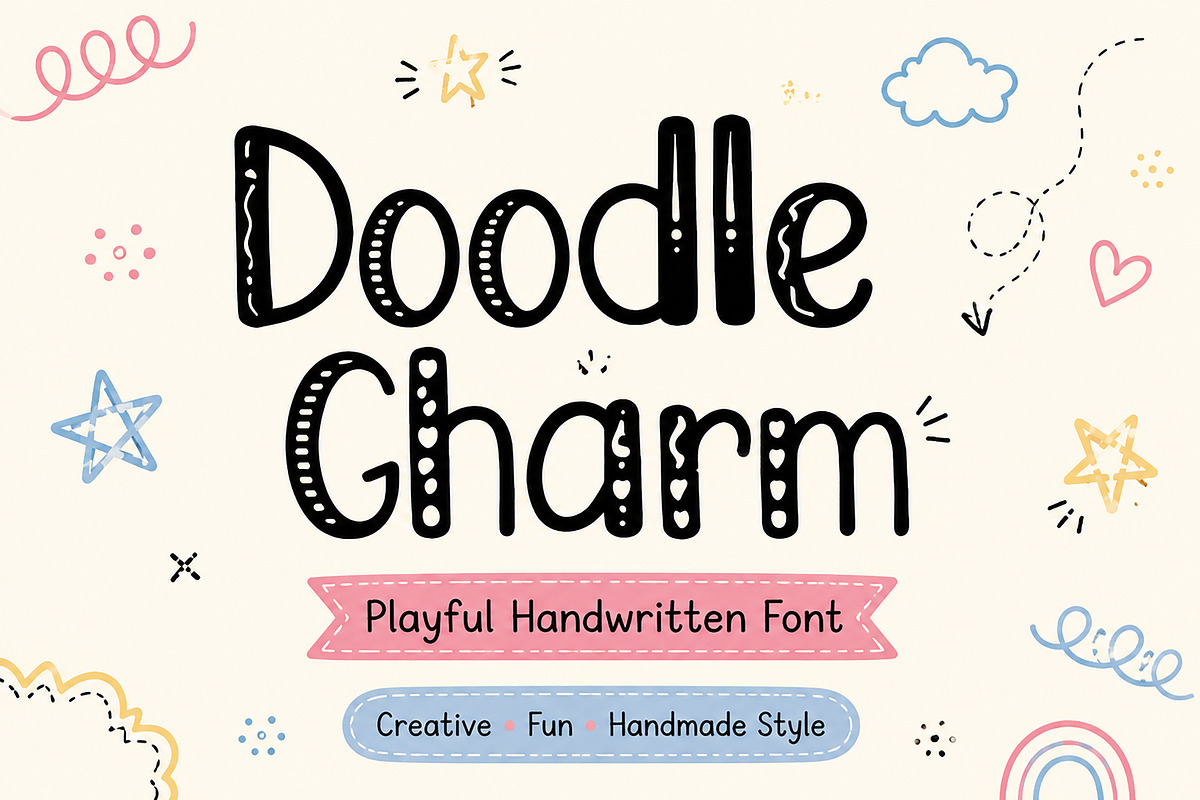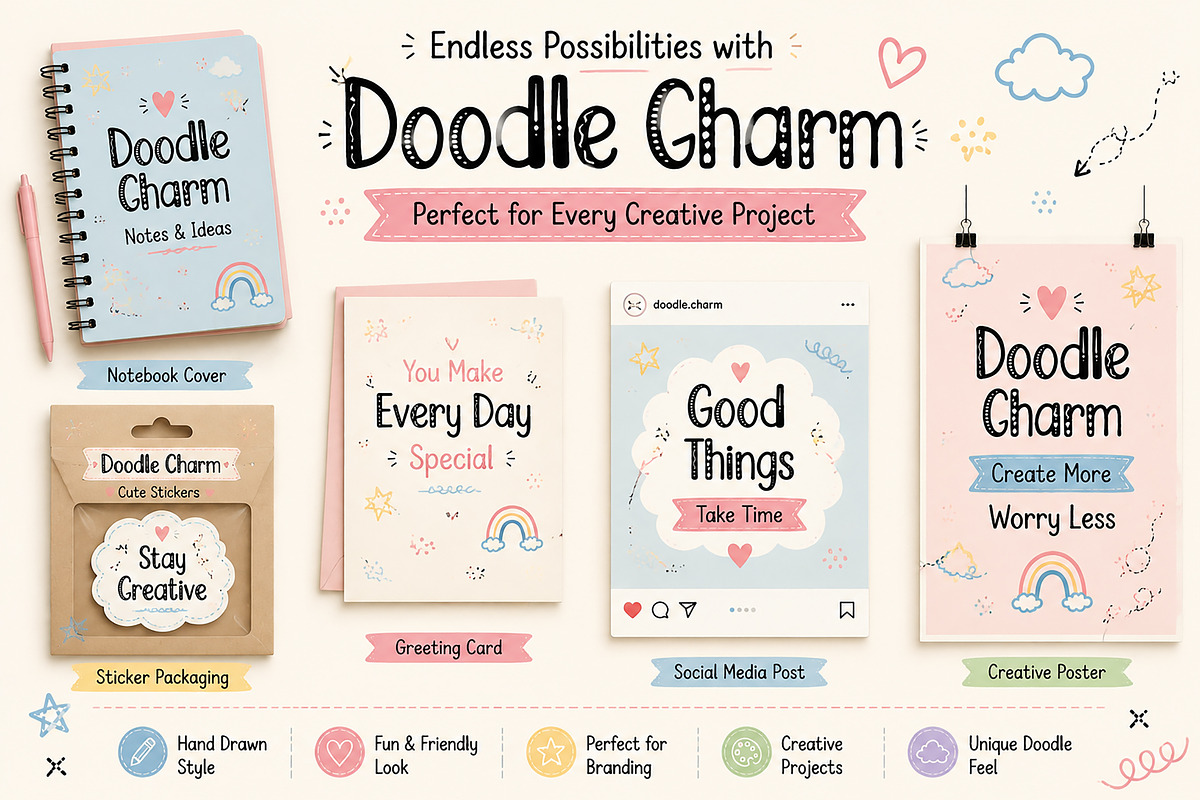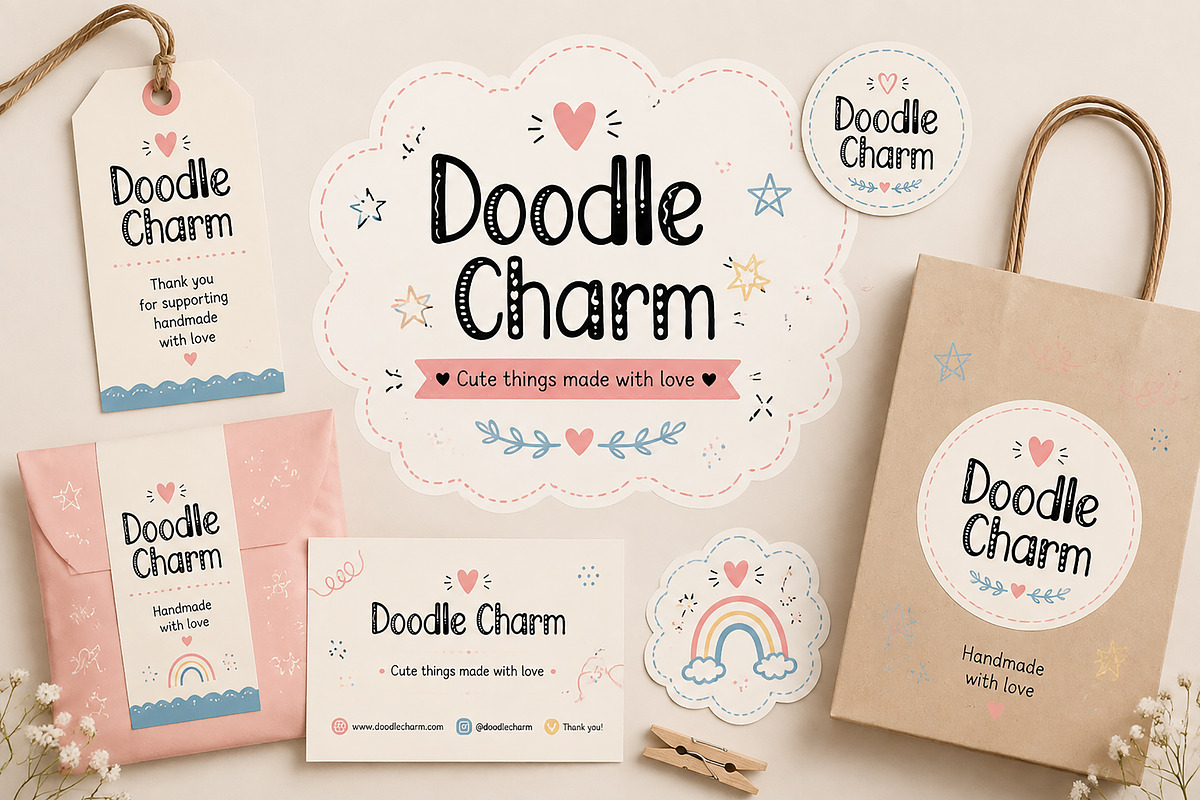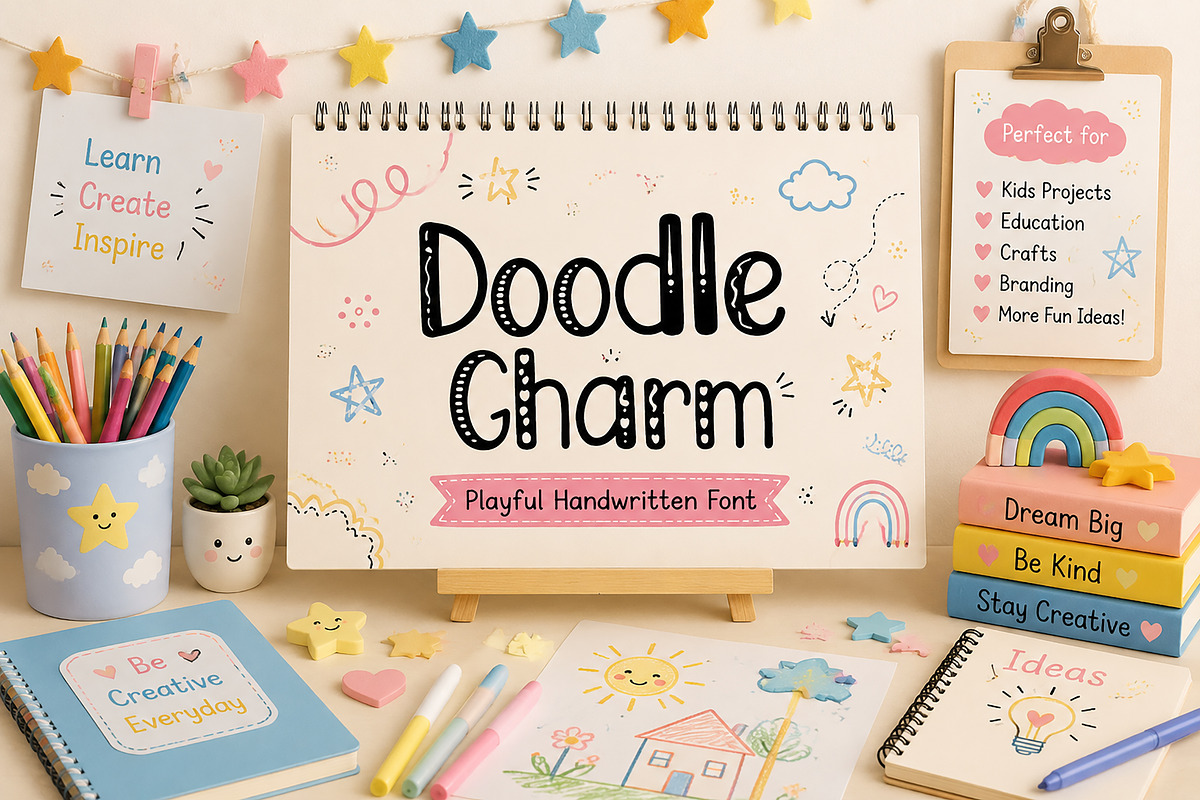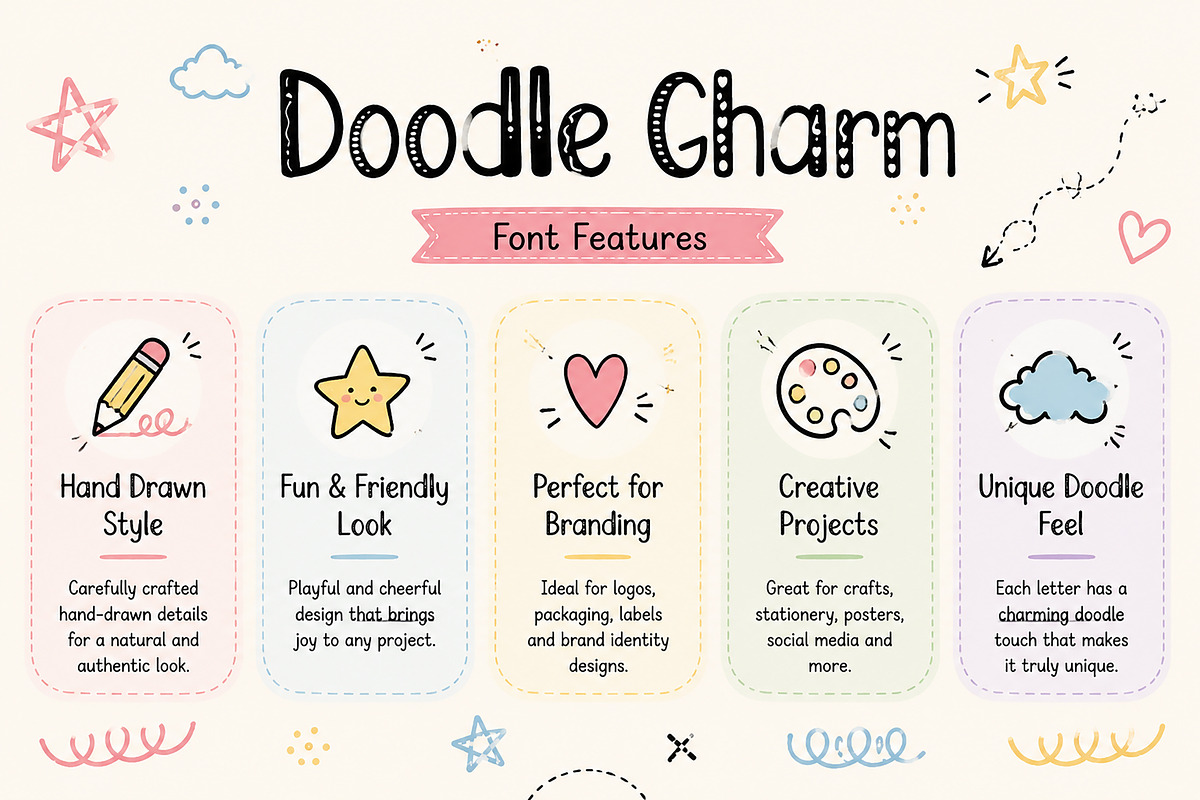
Doodle Charm – Handwritten Font
Doodle Charm – Playful Handwritten Font
Bring a fun, cheerful, and handmade feeling to your creative projects with Doodle Charm, a playful handwritten font designed with a unique doodle-inspired style.
Doodle Charm features a charming hand-drawn appearance with creative details that make every design feel friendly, personal, and full of personality. Its cute and casual style is perfect for projects that need a touch of creativity, warmth, and imagination.
This font is ideal for creating beautiful designs for branding, logos, packaging, kids’ projects, stationery, greeting cards, posters, social media graphics, stickers, invitations, and creative products.
Whether you are designing for a small handmade business, children’s brand, craft shop, or personal creative project, Doodle Charm adds a delightful handwritten touch that makes your work stand out.
✔ Playful handwritten style
✔ Unique doodle-inspired design
✔ Cute and friendly appearance
✔ Perfect for creative branding
✔ Great for kids and craft projects
✔ Works beautifully for digital and print designs
• Logo Design
• Brand Identity
• Packaging Design
• Sticker Design
• Greeting Cards
• Invitations
• Social Media Posts
• Posters
• Children’s Projects
• Handmade Products
• Stationery Design